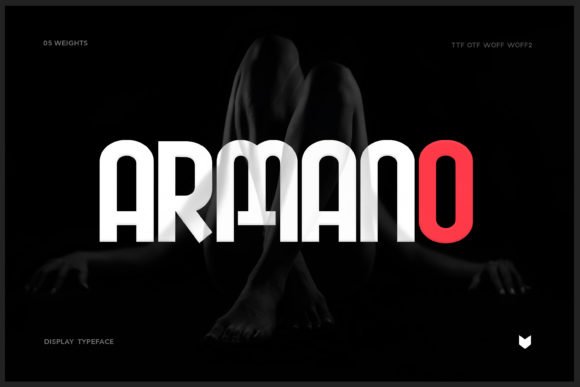
The Moment of Creative Inspiration
You know that feeling when a new design idea suddenly pops into your head and you just can’t wait to bring it to life? For many designers, it’s the spark that sets off a chain reaction of creativity and innovation. And for those who’ve been searching for the perfect font to elevate their designs, we’re excited to introduce the Armano Font.
This cool and bold display font is designed to add a modern touch to any project, from web designs to business cards. With its sleek and sophisticated lines, Armano Font is the perfect addition to any designer’s toolkit. Whether you’re a seasoned pro or just starting out, this versatile font is sure to inspire your next creative project.
Armano Font Key Features
- Font Family: Armano
- Unique Characteristics: Designed for digital use, optimized for screens, and suitable for both body and headline text.
- Language Support: Multilingual support, including Latin, Cyrillic, and Greek alphabets.
Armano Font Review
Overall, I’m quite impressed with the Armano Font. Here are some aspects where it truly shines:
- ✨ Elegant and modern design that’s perfect for luxury brands or high-end applications. The font exudes sophistication and refinement.
- ✨ Excellent legibility, even at smaller font sizes. This makes it an ideal choice for body text or large blocks of content.
- ✨ Robust font family with a wide range of weights and styles to choose from, giving you plenty of flexibility in your design.
However, I do have a few concerns:
- ⚠️ The font might be a bit too ornate for some applications. If you’re looking for a clean and minimalist design, you might find Armano too flashy.
- ⚠️ The font family can be quite large, which might make it difficult to manage and optimize for different screen sizes and devices.
Overall, I think the Armano Font is a great choice for designers who want to create a high-end, luxurious feel in their projects. While it may not be suitable for every application, its elegance and sophistication make it a solid addition to any font library.
Tips for Getting the Most Out of Armano Font
1. Use Armano Font in conjunction with other elegant fonts to create a sophisticated look.
2. Experiment with different font sizes and styles to add visual interest to your design.
3. Use Armano Font for headings, titles, and other prominent text elements to draw attention to important information.
Alternatives to Armano Font
Open Sans is a popular sans-serif font that is highly legible and versatile. It is suitable for body text, headings, and titles. Open Sans is a good choice when you need a clean and modern look. It is also highly customizable, making it a great option for designers who want to create a unique visual identity.
Compared to Armano Font, Open Sans has a more neutral and clean design, making it a good choice for minimalistic and modern designs. It also has a larger character set, making it suitable for multilingual designs.
Lato is a modern sans-serif font that is highly legible and elegant. It is suitable for body text, headings, and titles, and is particularly well-suited for luxury and high-end designs. Lato has a more sophisticated and refined design compared to Armano Font, making it a good choice for designers who want to create a premium visual identity.
Compared to Armano Font, Lato has a more elegant and refined design, making it a good choice for high-end designs. It also has a larger character set, making it suitable for multilingual designs.
Montserrat is a sans-serif font that is highly legible and modern. It is suitable for body text, headings, and titles, and is particularly well-suited for urban and modern designs. Montserrat has a more geometric and urban design compared to Armano Font, making it a good choice for designers who want to create a modern and edgy visual identity.